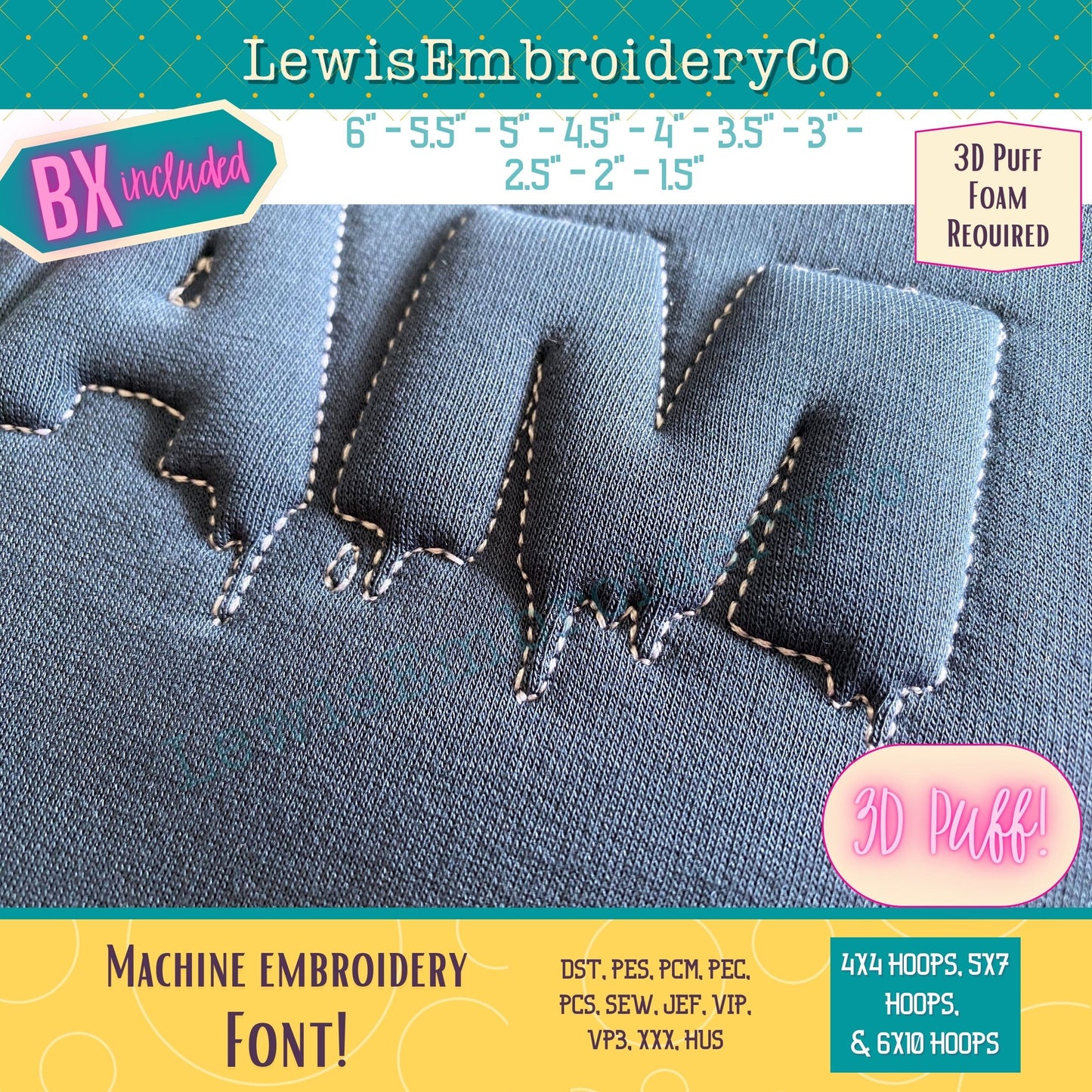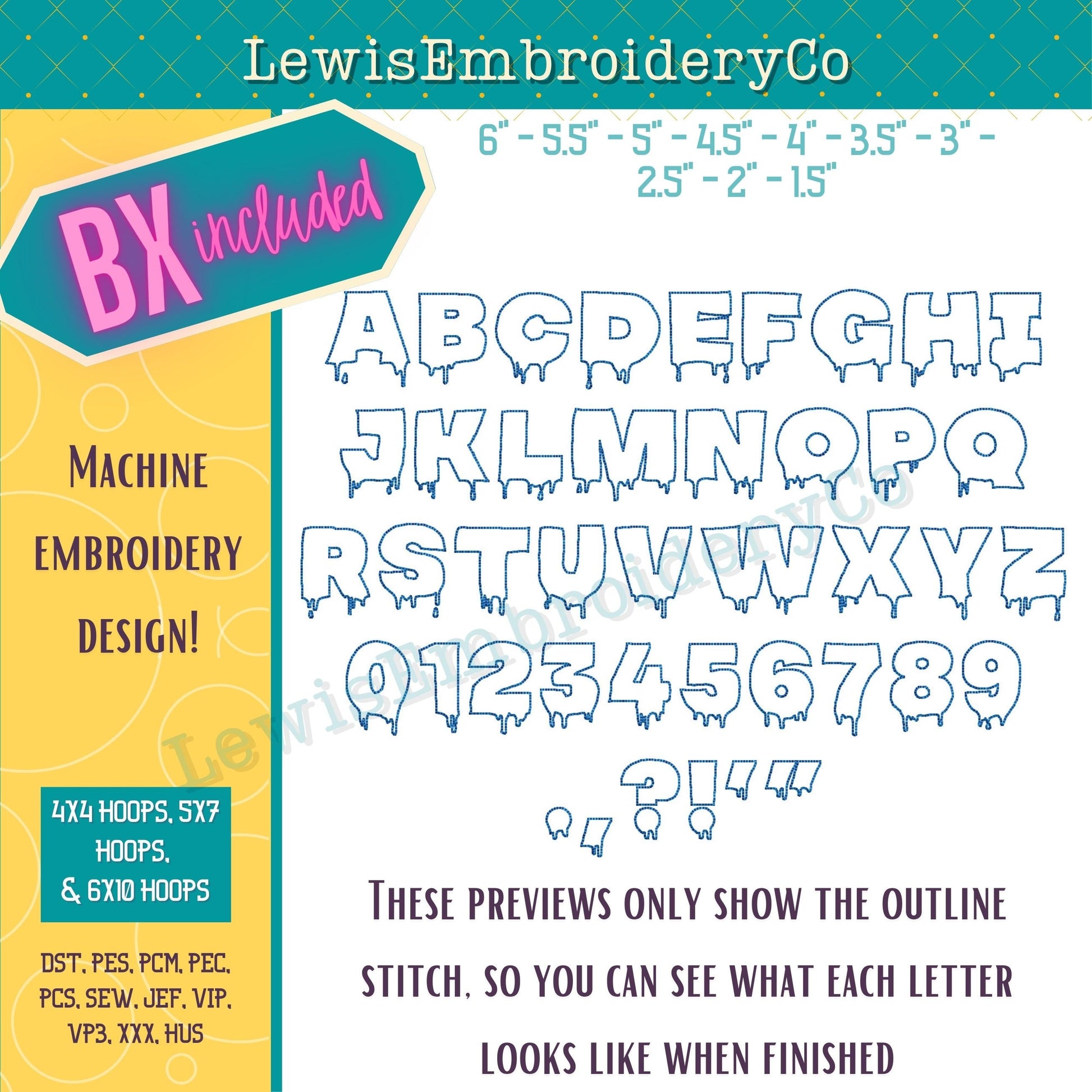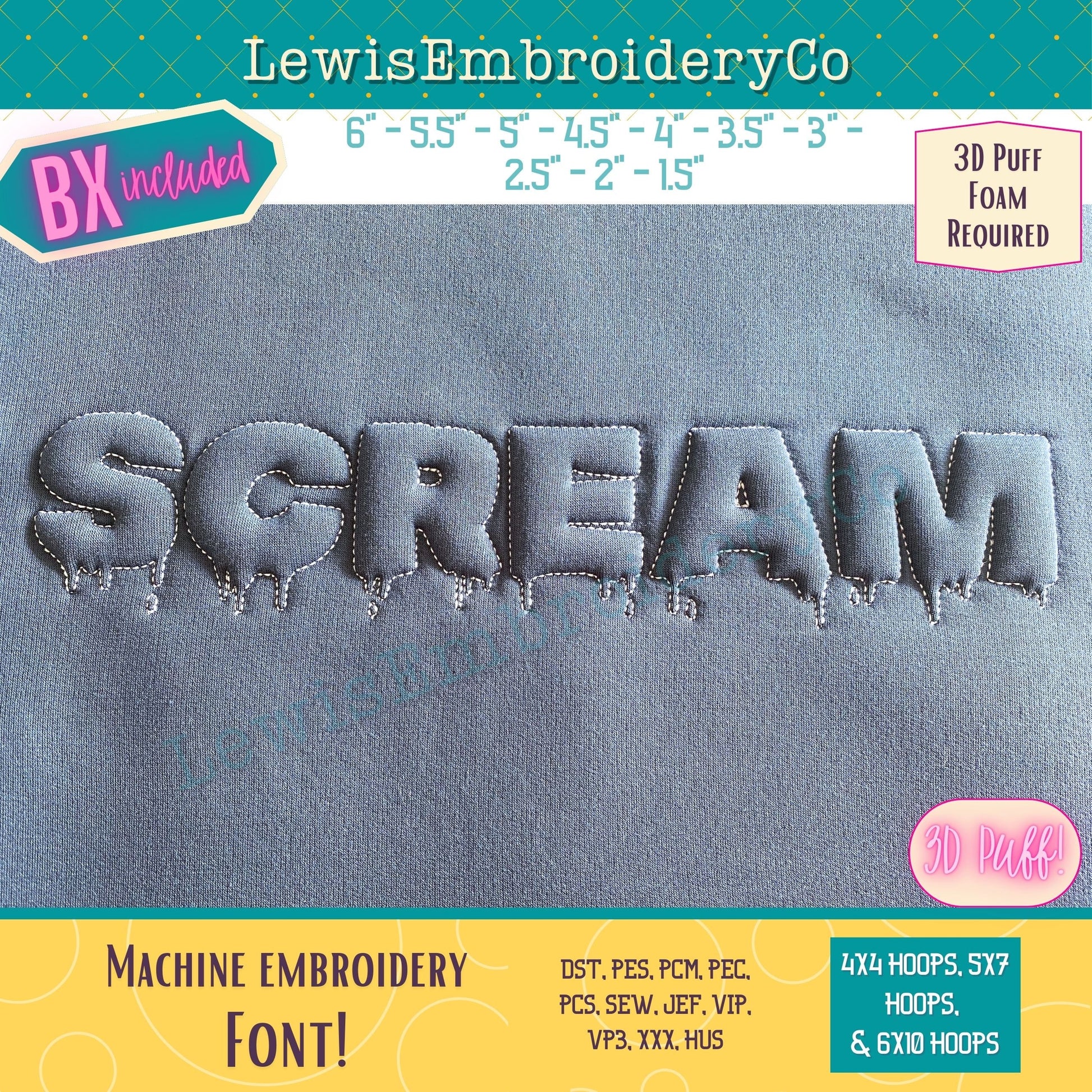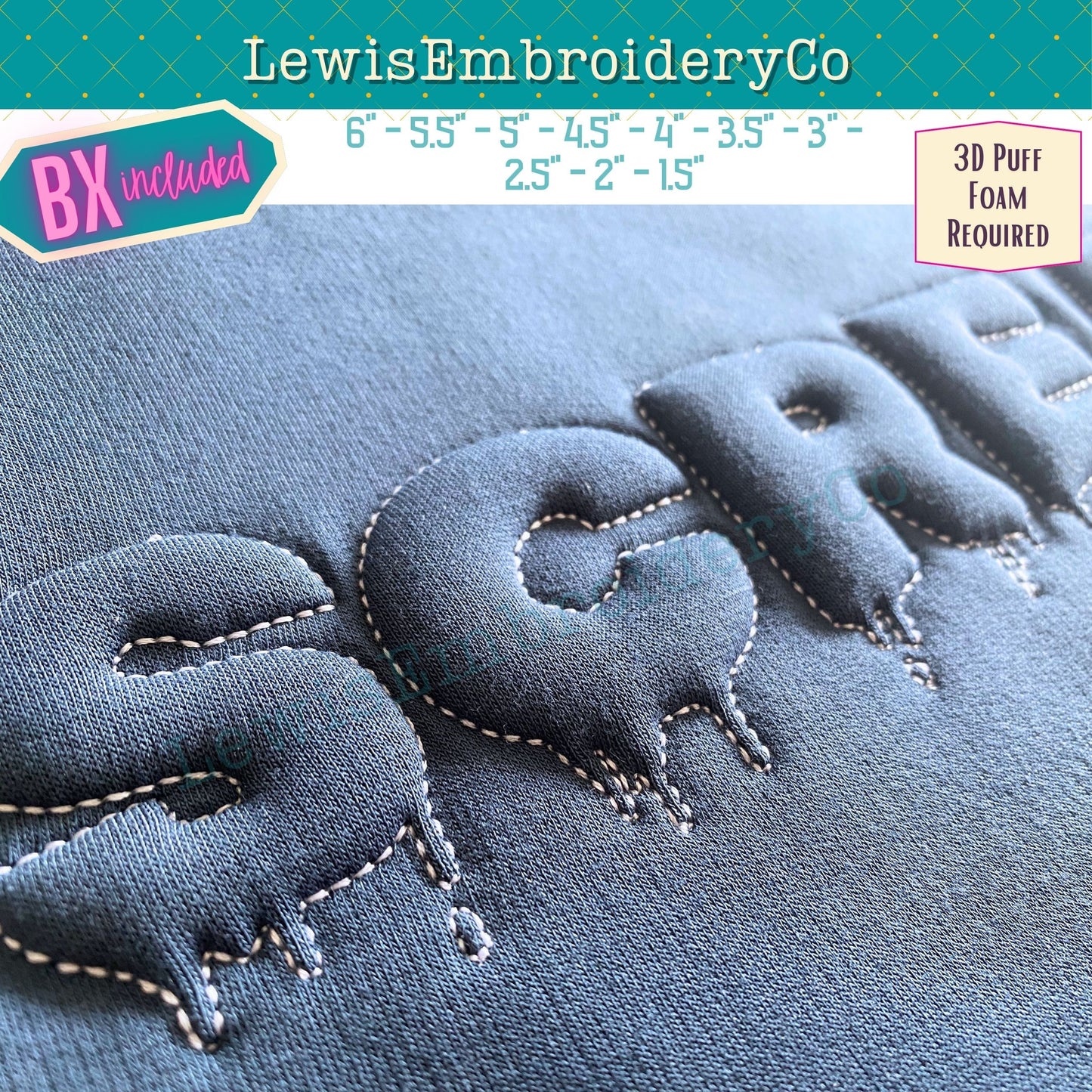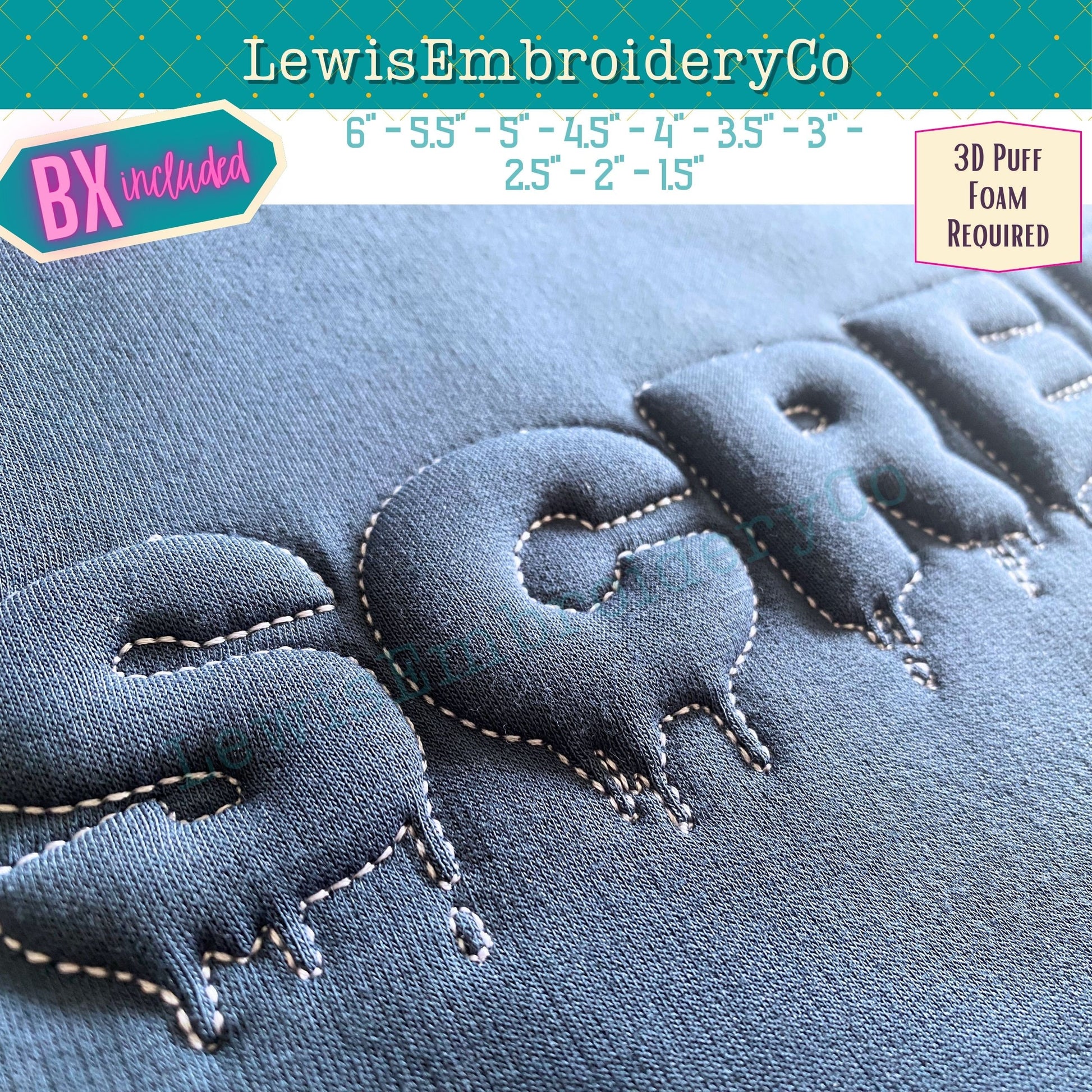
Embossed 3D Puff, Spooky, Machine Embroidery Font - With BX - (PDF Tutorial Included)
Embossed 3D Puff Dripping Embroidery Font - Puff Foam Spooky Alphabet - Puffy Block Font - Halloween Embroidery Font - BX Font - Horror